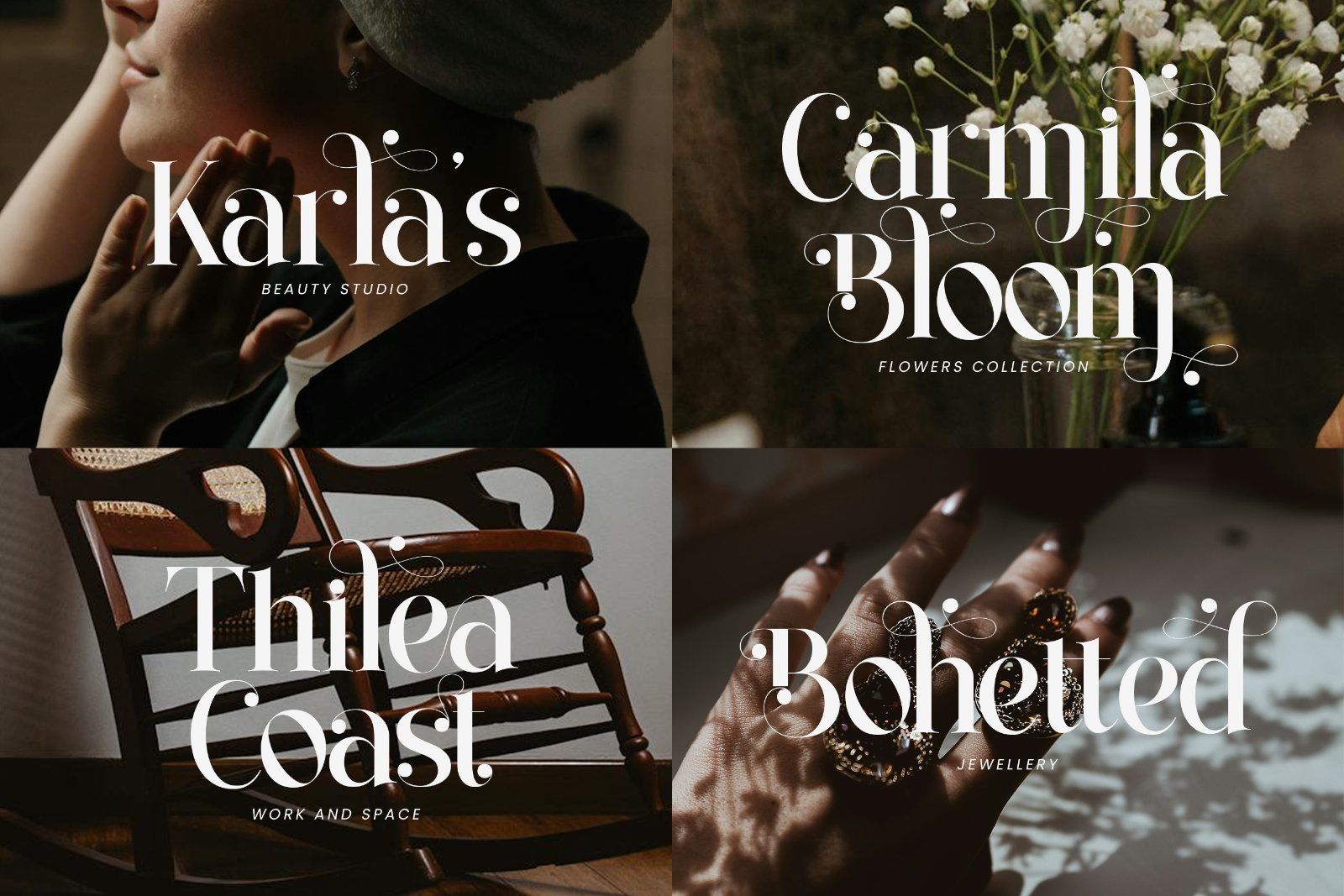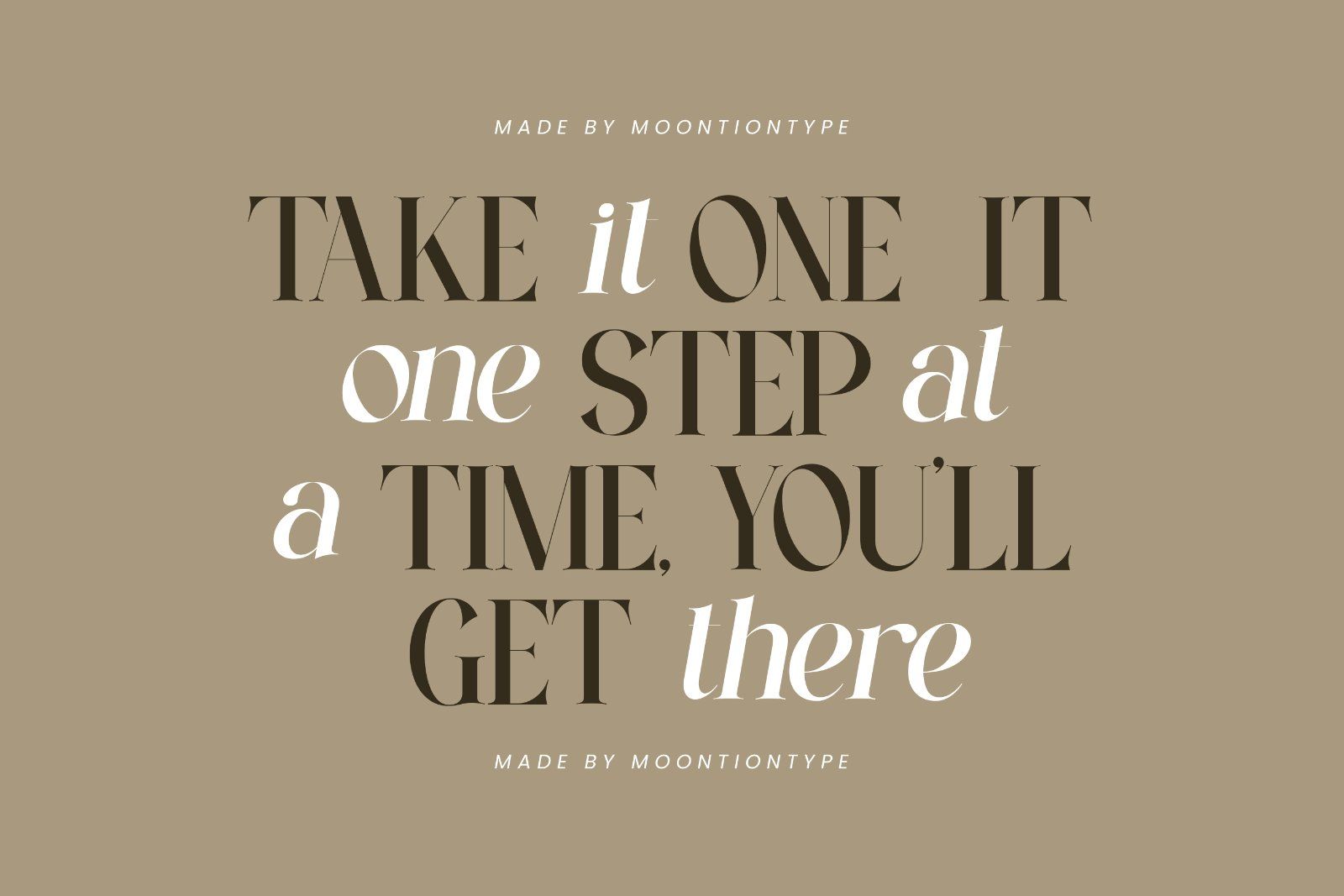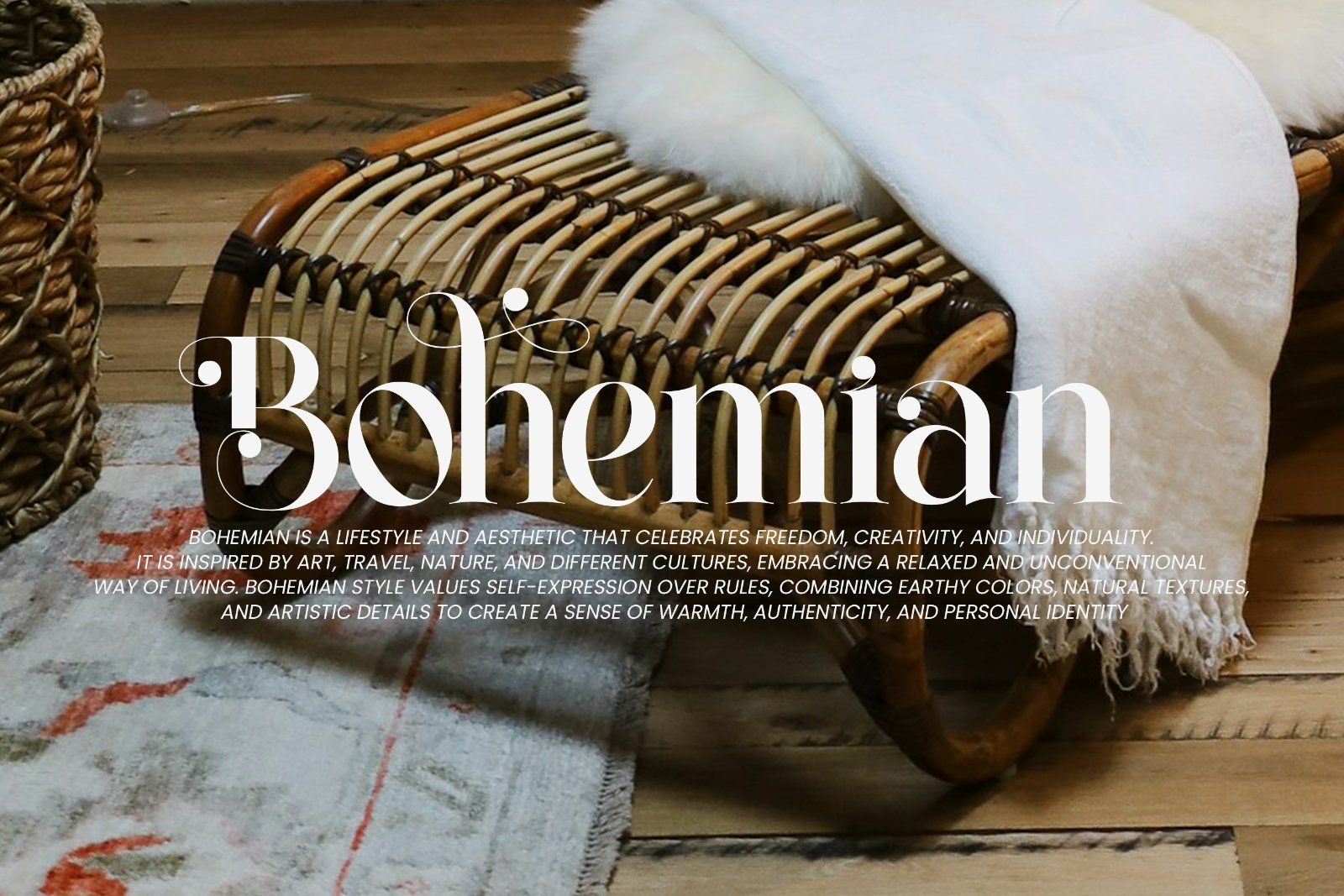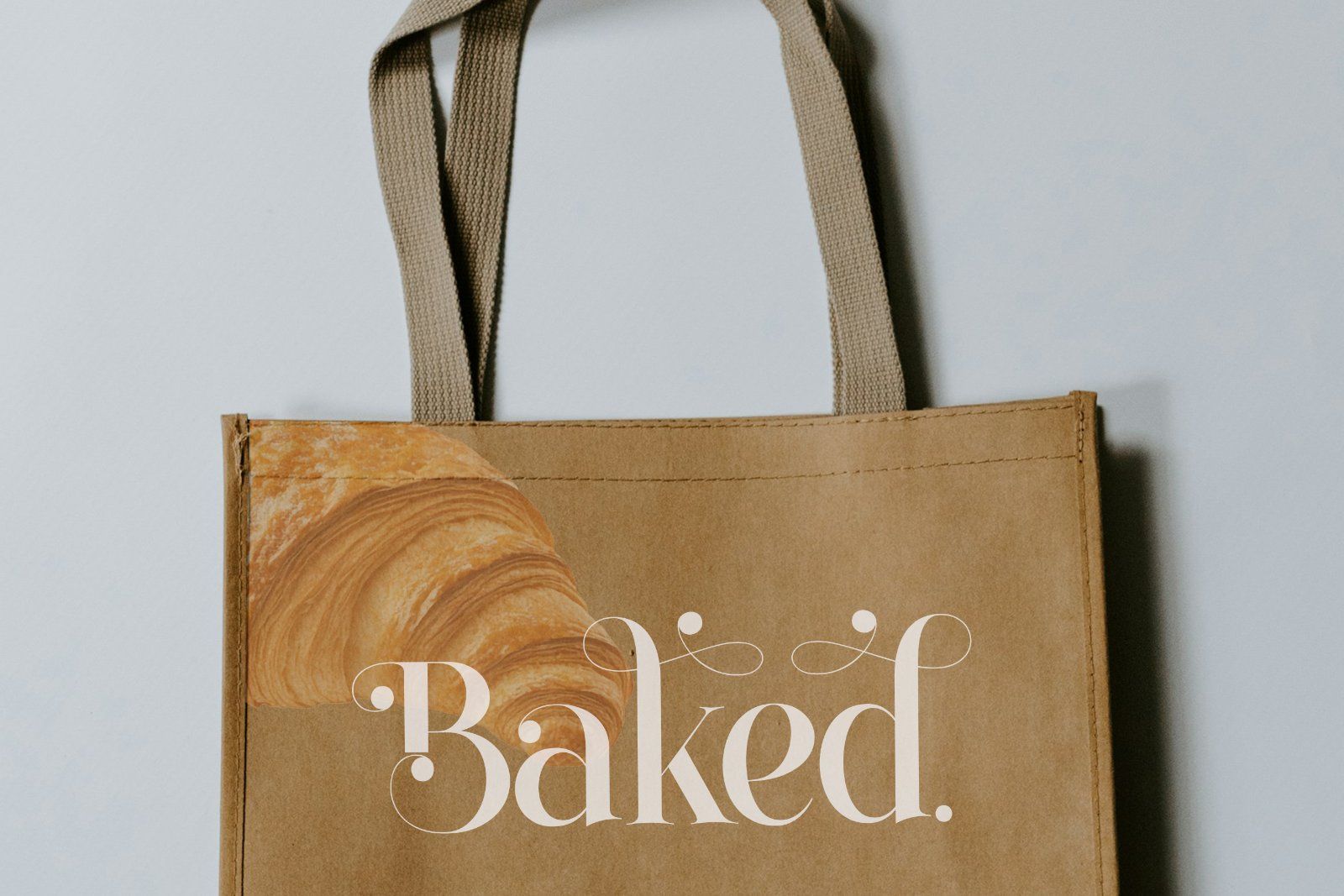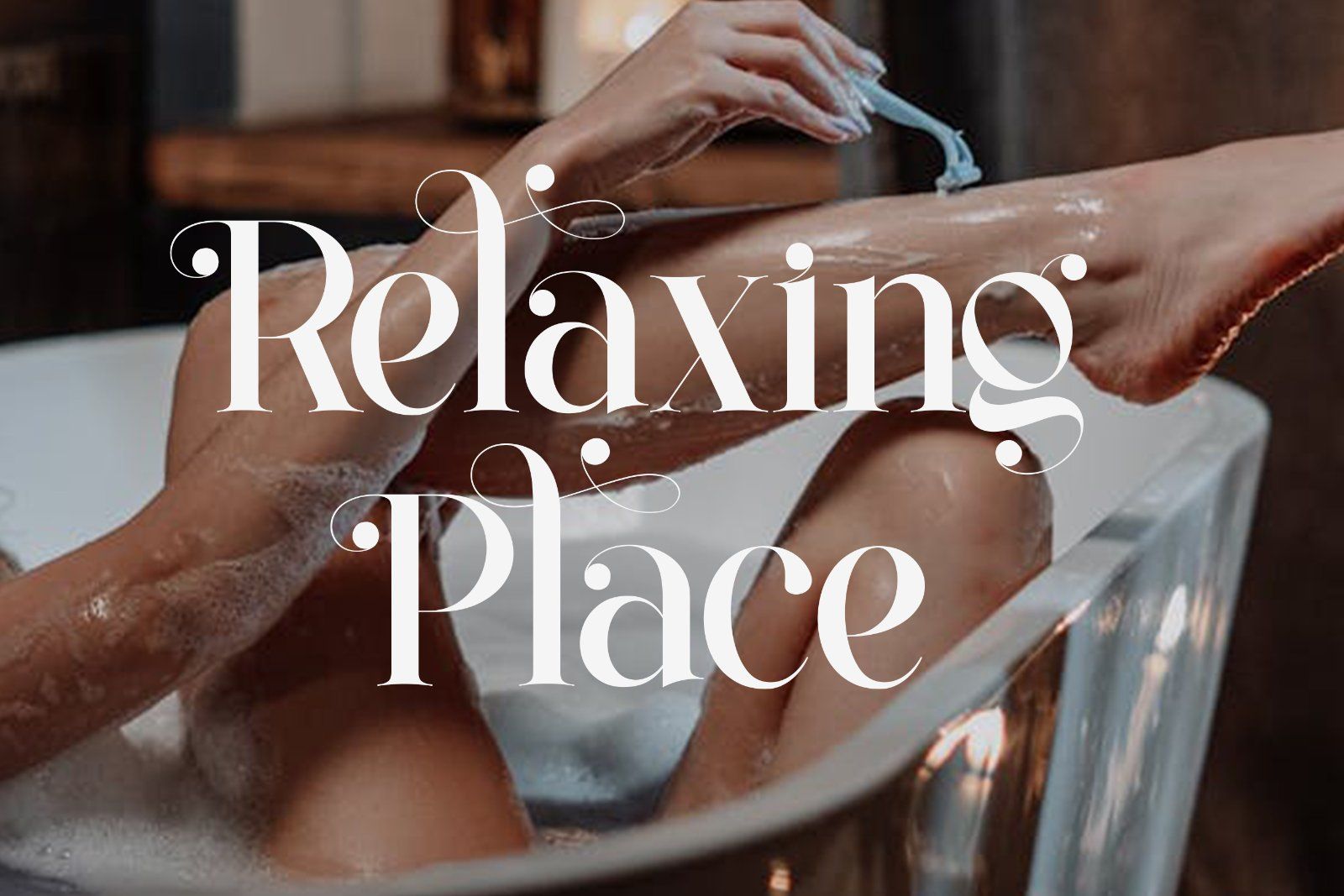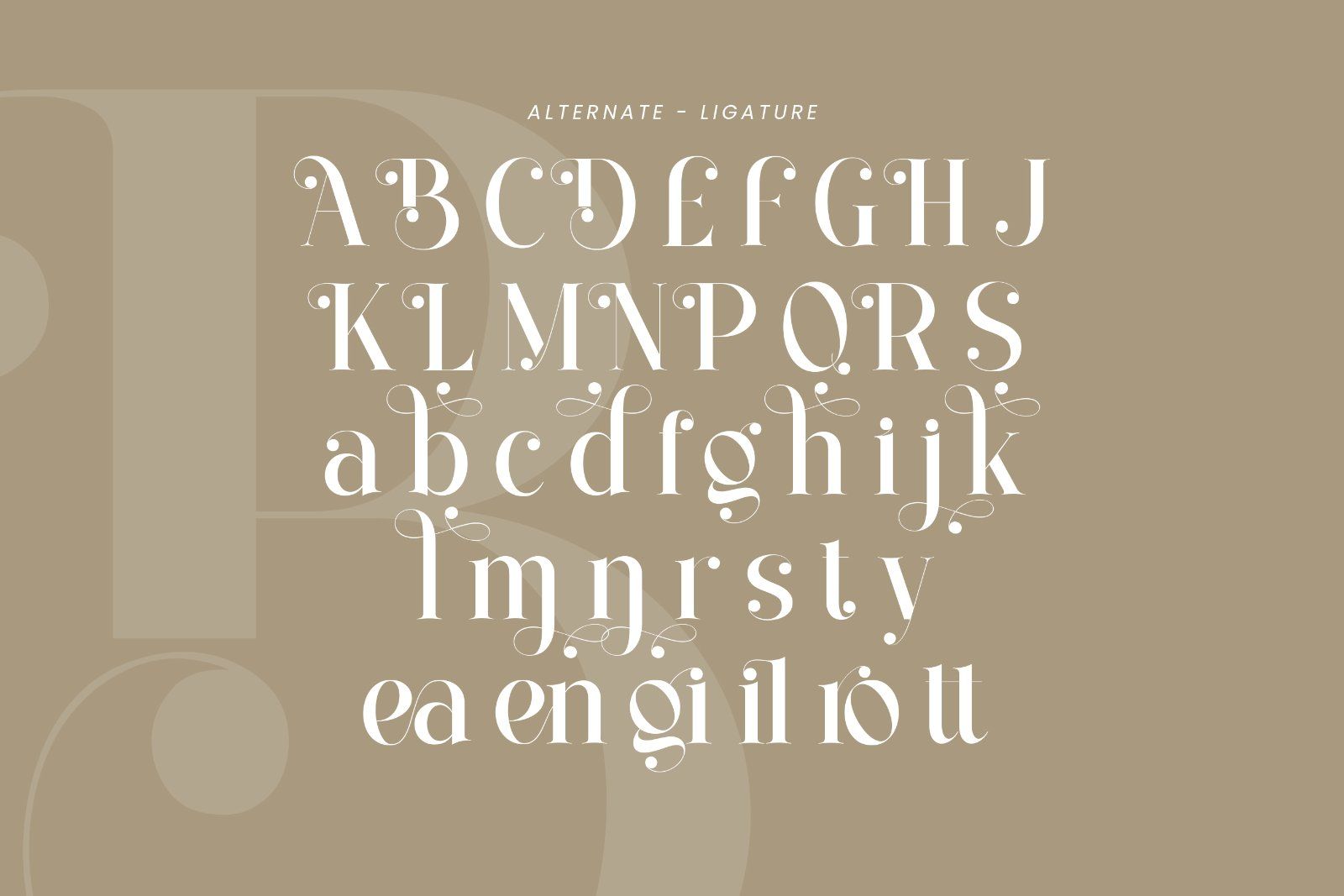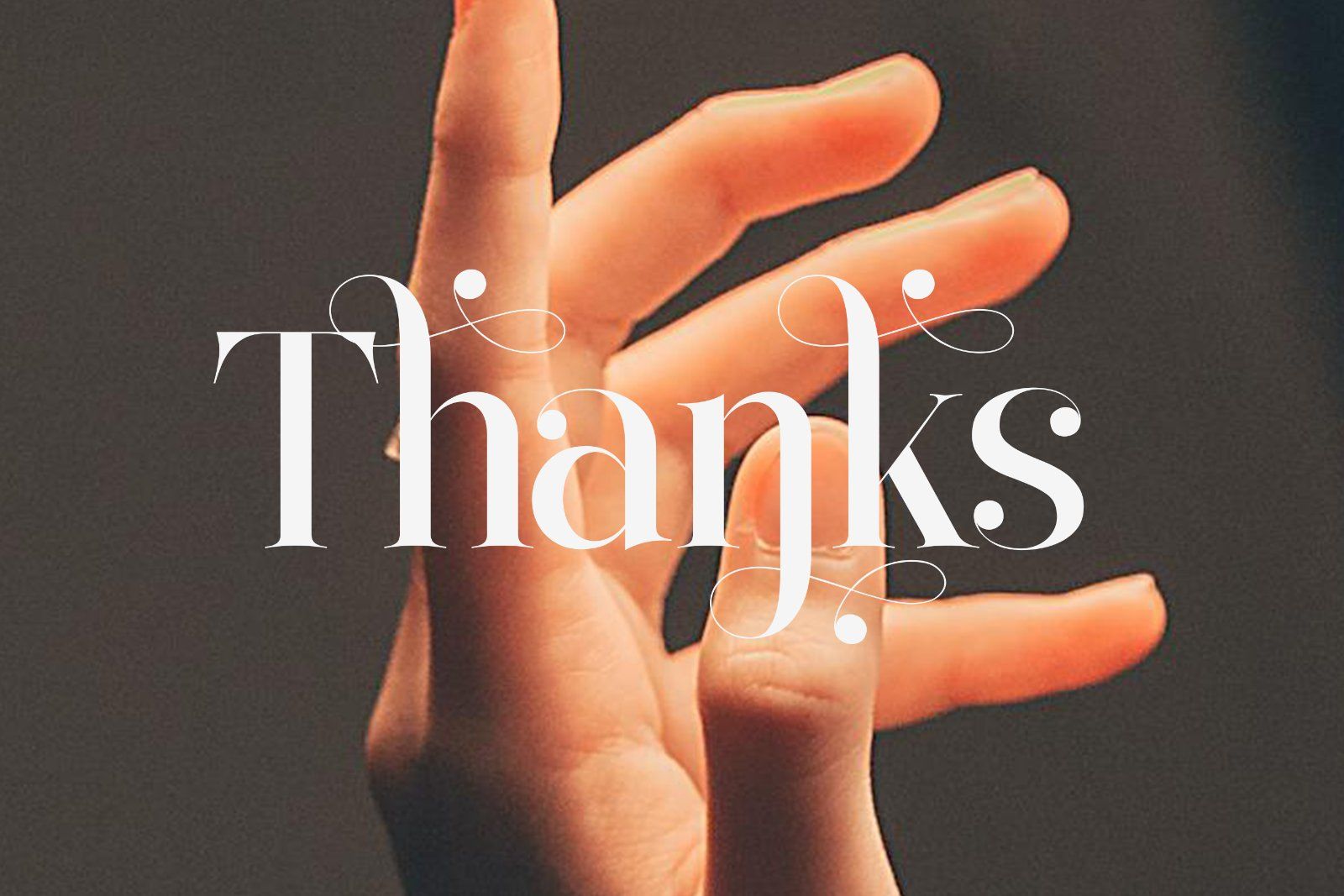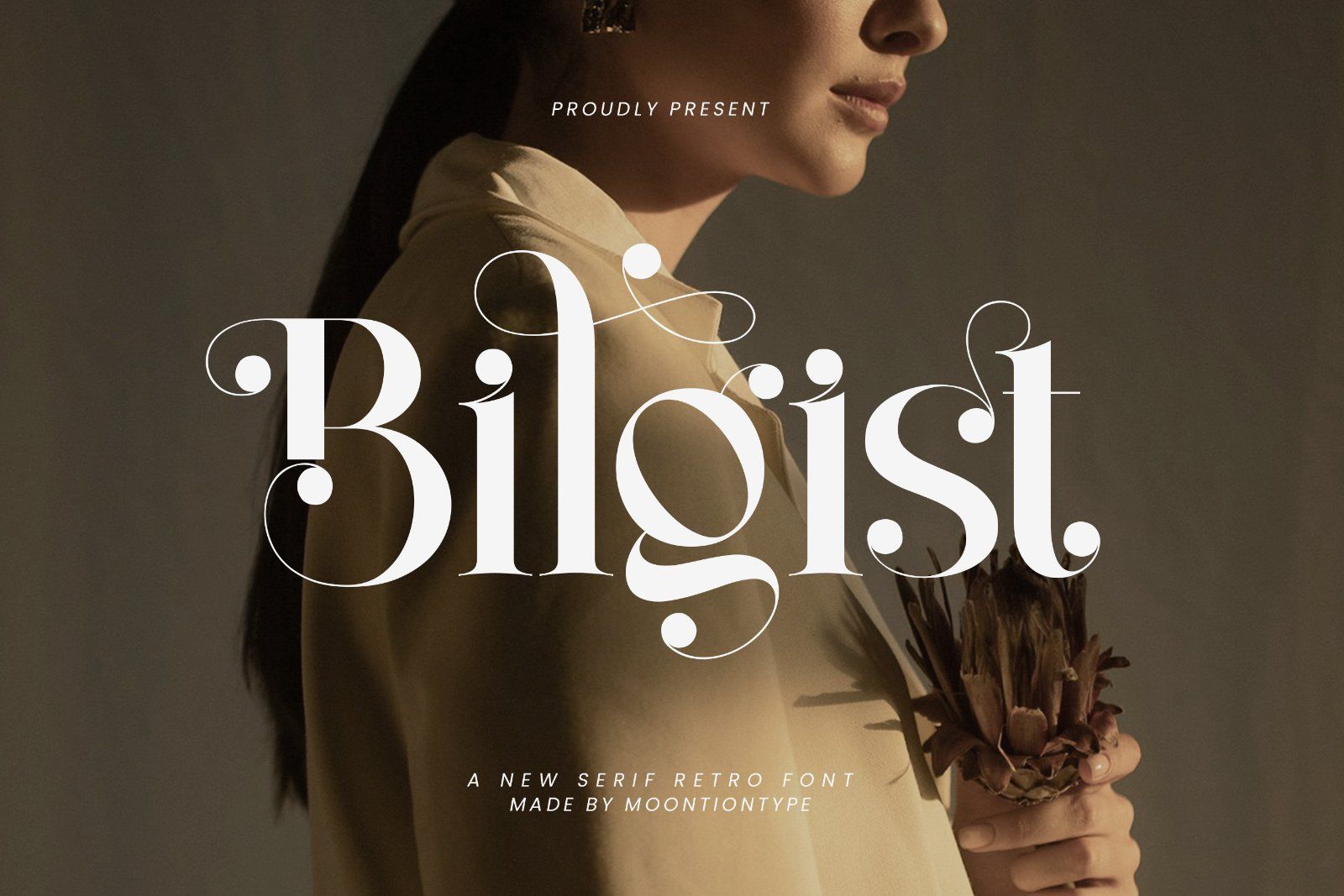
Bilgist is a retro serif font with elegant curves and artistic details. Inspired by vintage typography and bohemian aesthetics, this font combines classic charm with a modern, stylish touch. Its decorative swashes and smooth letterforms make Bilgist perfect for creating eye-catching and luxurious designs.
This font works beautifully for branding, logos, fashion projects, editorial designs, wedding invitations, posters, packaging, and social media graphics. Bilgist brings a warm, timeless, and sophisticated feel to any creative work.
• Uppercase
• Lowercase
• Numbers
• Punctuation
• Alternate
• Ligature